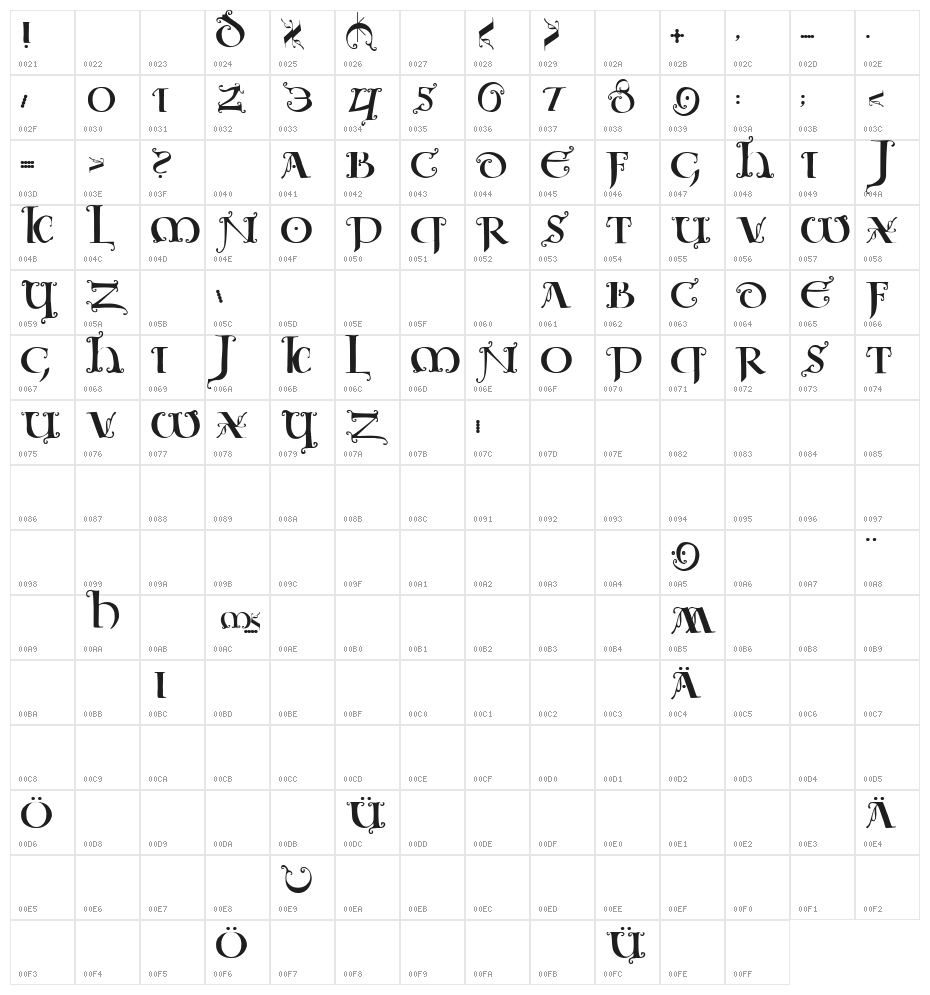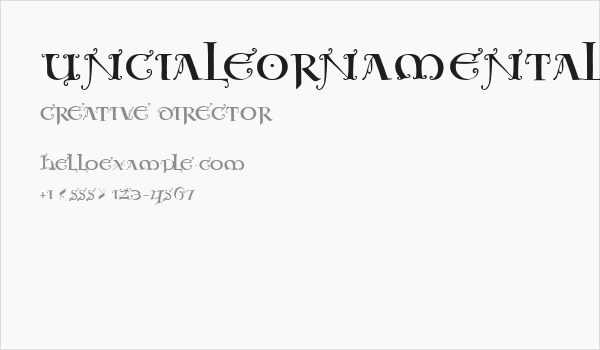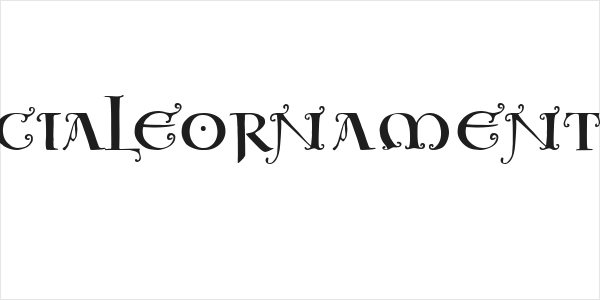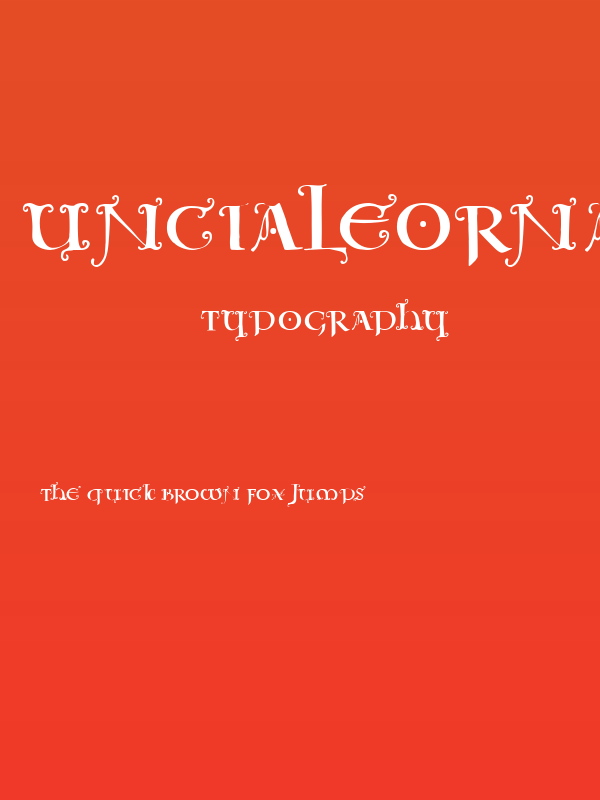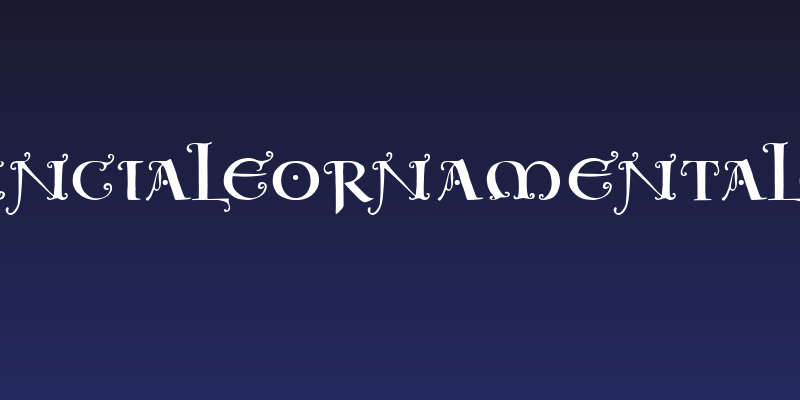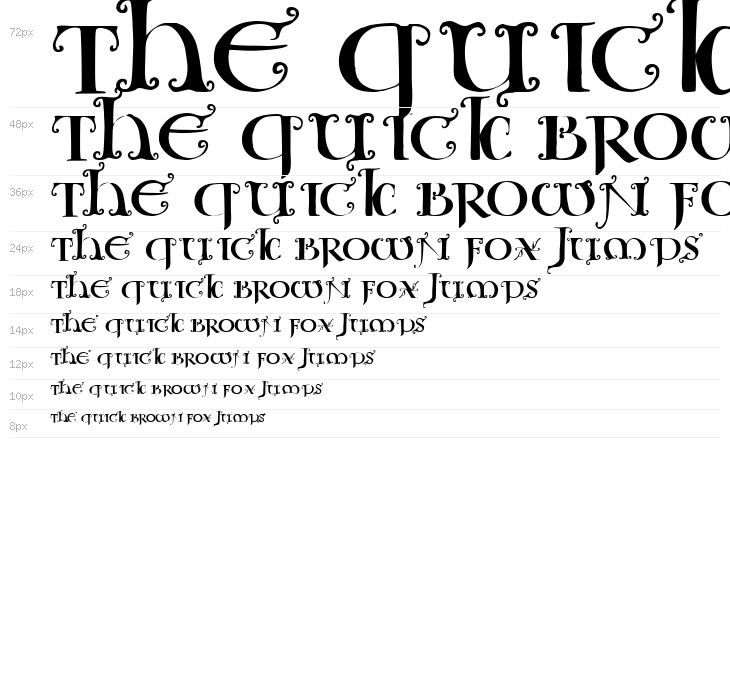
UncialeOrnamentale Font
UncialeOrnamentale Description
This font features a highly decorative and ornate style, reminiscent of medieval script with a modern twist. Each character is adorned with intricate flourishes and embellishments, giving it a unique and artistic appearance. The uppercase letters are bold and commanding, while the lowercase letters maintain a consistent style with slightly less emphasis. The numbers and special characters are equally ornate, ensuring a cohesive look across all elements. This font is perfect for projects that require a touch of elegance and historical flair, such as invitations, posters, or branding materials. Its distinct style makes it stand out, capturing attention with its elaborate design.
Proposed ProjectsIdeal for invitations, posters, branding, and any project needing an elegant, historical touch.